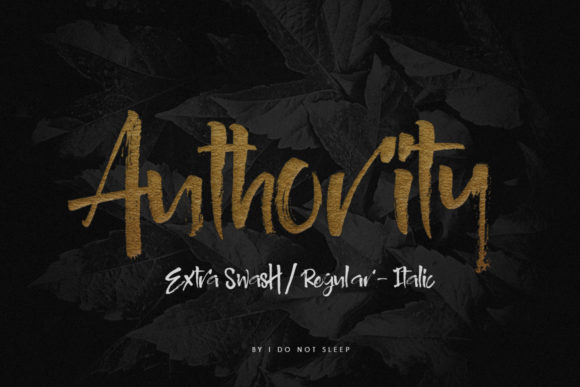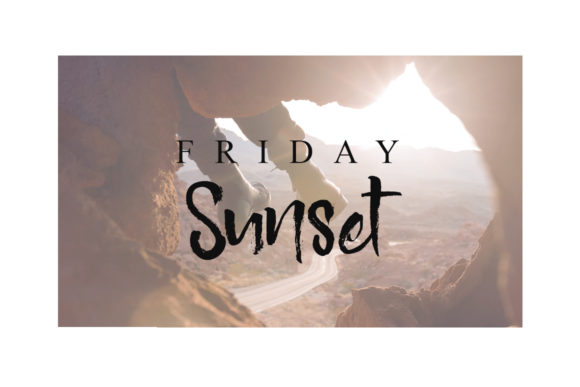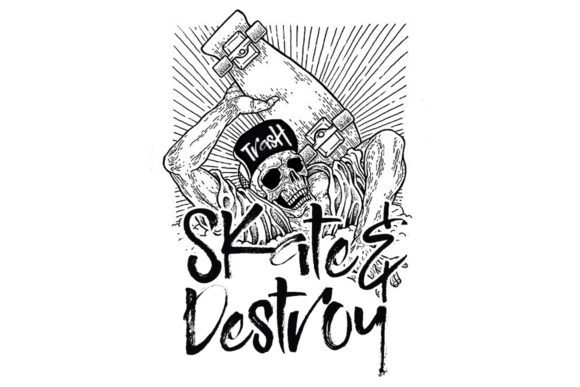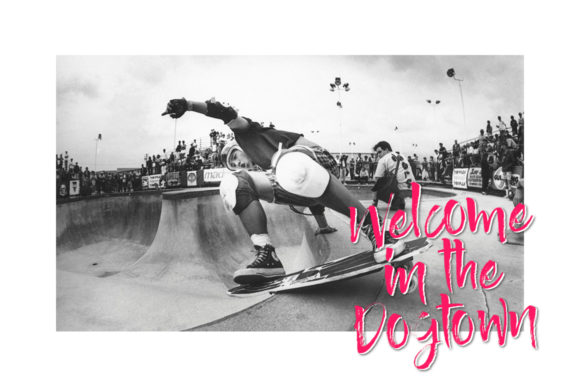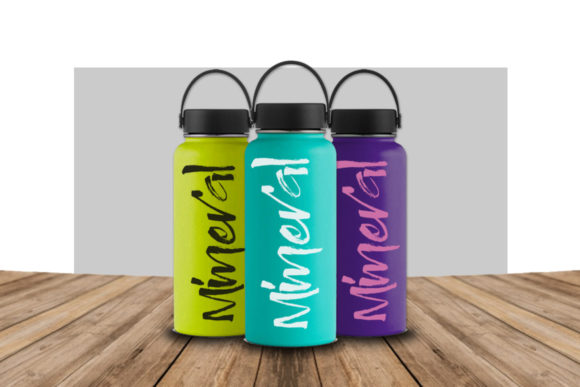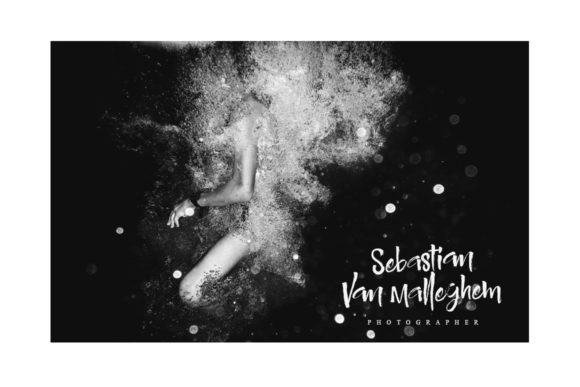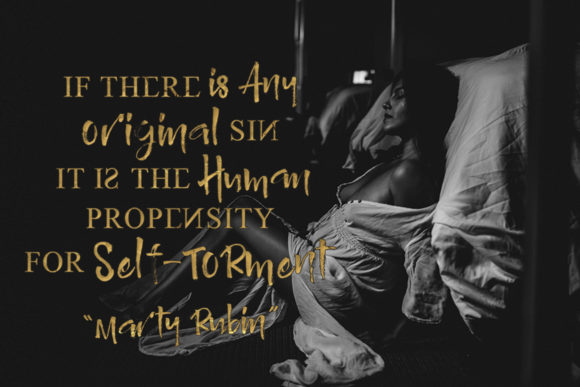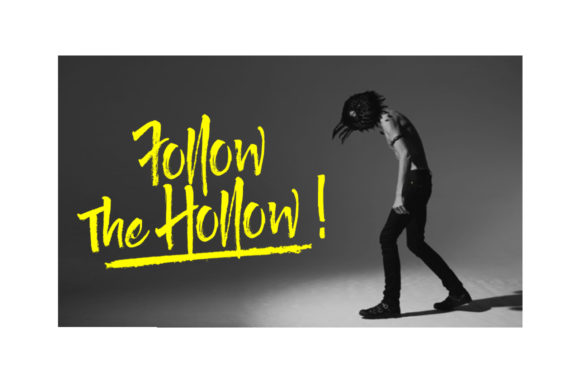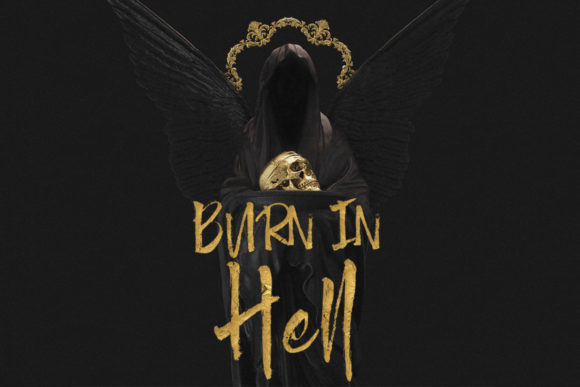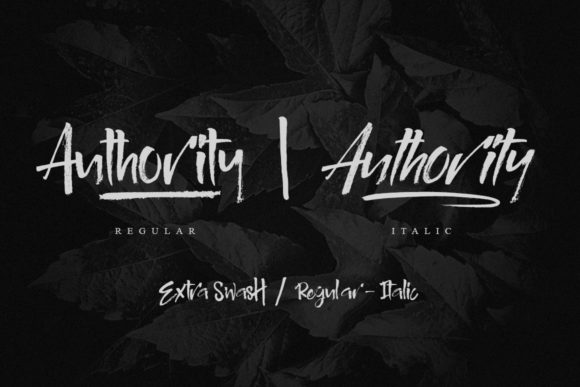
Authority Font
About Authority Font
The Authority is an amazing handwriting family. It has an awesome, firm, neat texture which will give your design a young and cool look.
It’s perfect for websites, product designs, markers, t-shirts, merchandising, quotes, displays, and much more!